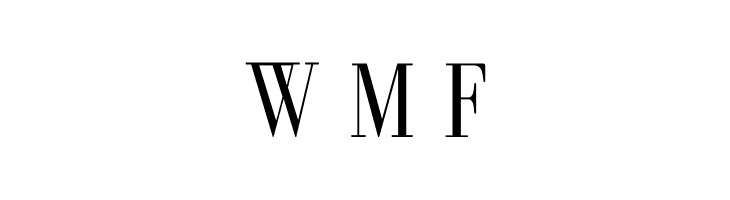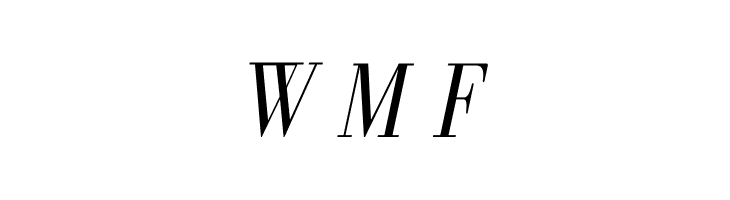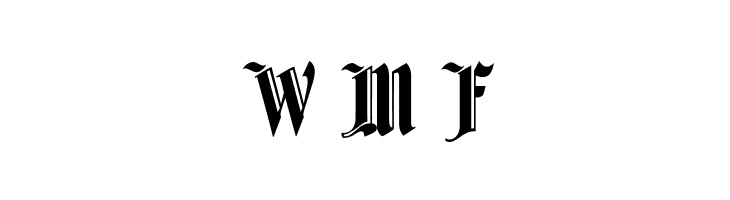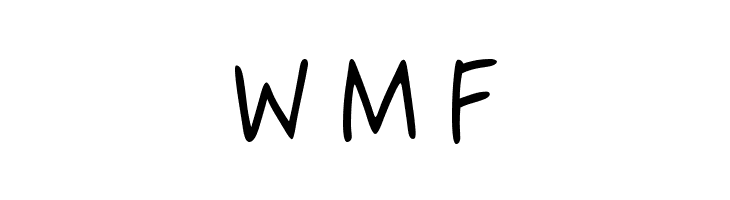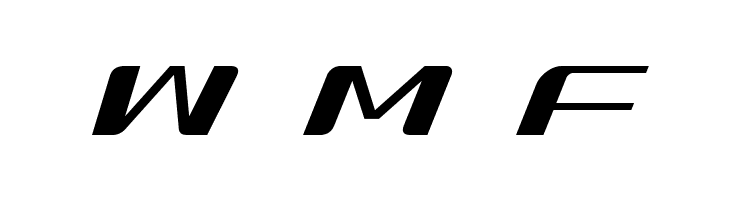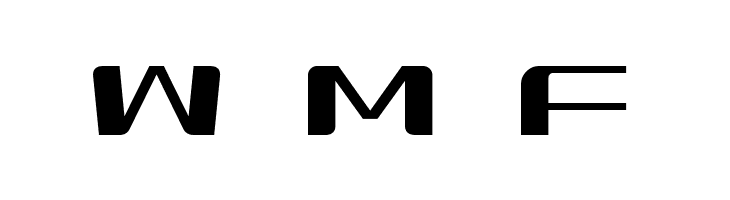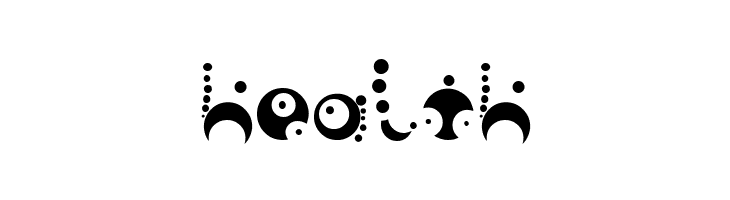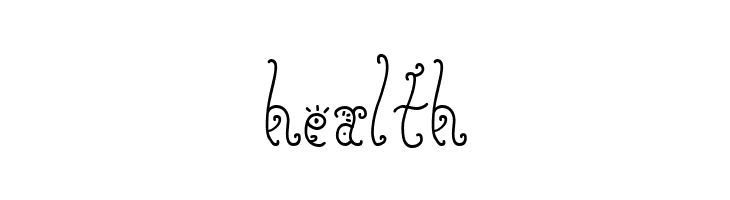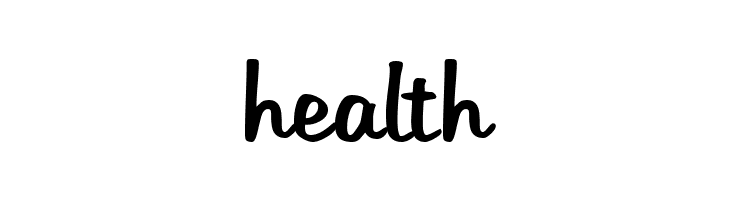
A modern, oblique font with clean lines and a dynamic style.
A modern, geometric sans-serif font with uniform strokes and excellent readability.
A bold, italic serif font with elegant curves and strong presence.
A classic serif typeface with elegant strokes and high contrast.
A bold, classic serif font with strong contrast and formal elegance.
An elegant serif font with a classic italic style and high contrast strokes.
A bold, playful, hand-drawn font with a whimsical and artistic style.
A modern serif font with geometric influences and a balanced design.
A bold, high-contrast font with dramatic strokes and unique character design.
A bold, shadowed serif font with a three-dimensional effect.
A bold, decorative font with a contour effect and strong serifs.
A bold blackletter font with sharp, angular strokes and ornate detailing.
A modern, ultra-condensed sans-serif font with a sleek and minimalistic design.
A modern, semi-bold sans-serif font with a clean and geometric design.
A modern, oblique font with clean lines and consistent stroke width.
A modern, thin, and condensed font with a minimalist design.
A bold, modern sans-serif font with a clean and geometric design.
A modern, minimalist font with thin, elongated characters.
A modern, geometric font with consistent stroke widths and a clean design.
A sleek, ultra-modern font with expanded width and thin strokes.
A bold, sans-serif font with strong, thick strokes and a modern aesthetic.
A playful, handwritten font with rounded, smooth letterforms.
A bold, industrial-style font with strong, blocky characters.
A playful, casual handwritten font with smooth, rounded edges and a dynamic slant.
An outlined Gothic-style font with sharp angles and a geometric form.
A bold Gothic font with a shadow effect, offering a dramatic and historical style.
A bold, Gothic-style font with intricate, angular detailing.
A bold Gothic font with sharp, angular lines and intricate detailing.